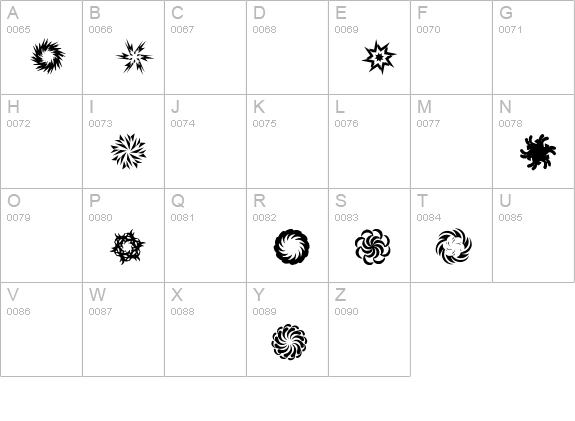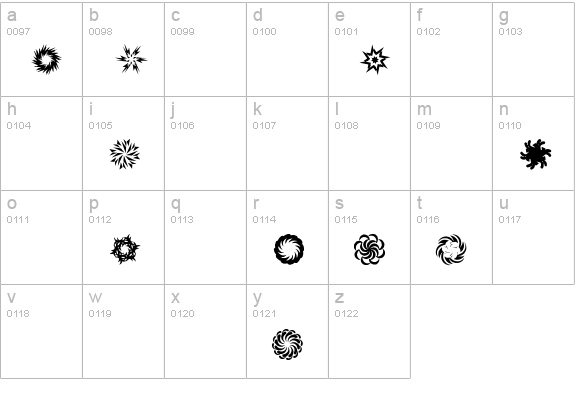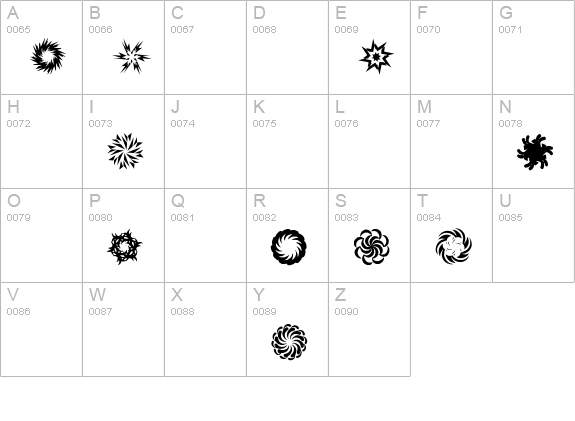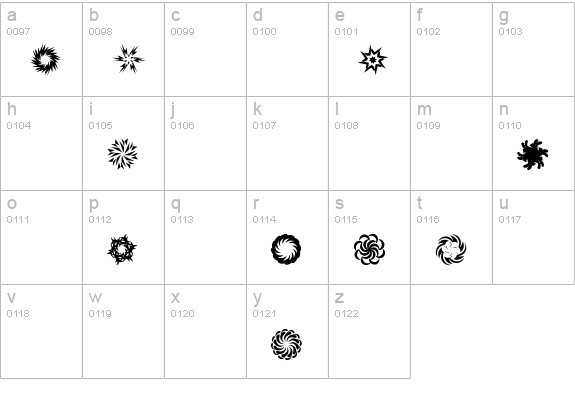
In The Zone Dingbats Font Details
Introducing the captivating and enigmatic In The Zone Dingbats font, a unique and versatile typeface that will inspire creativity and add a touch of whimsy to any design project. With its intriguing collection of symbols, icons, and illustrations, In The Zone Dingbats font is the perfect choice for adding a playful yet sophisticated element to your designs. This extraordinary font features an extensive range of meticulously crafted dingbats, each with its own distinct personality and style. From delicate floral motifs to bold and edgy geometric shapes, In The Zone Dingbats font offers a wide variety of options to suit any design concept. With its seamless integration into various design applications, In The Zone Dingbats font allows for effortless customization and exploration. Its versatility extends beyond traditional use, making it ideal for everything from logo design and branding to web graphics, stationery, and more. Let your imagination run wild and create stunning visuals with this captivating font. What sets In The Zone Dingbats font apart is its accessibility. It is freely available to download at FontsMarket.com, allowing designers of all levels to harness its creative potential without any limitations. Whether you are a seasoned professional or a budding designer, this font provides a wealth of possibilities to help you elevate your projects to new heights. With its seamless compatibility and effortless integration, In The Zone Dingbats font is a must-have addition to any designer's toolkit. So why wait? Unlock your creativity and explore the boundless potential of In The Zone Dingbats font today. Download it for free at FontsMarket.com and embark on a journey of artistic expression like never before.